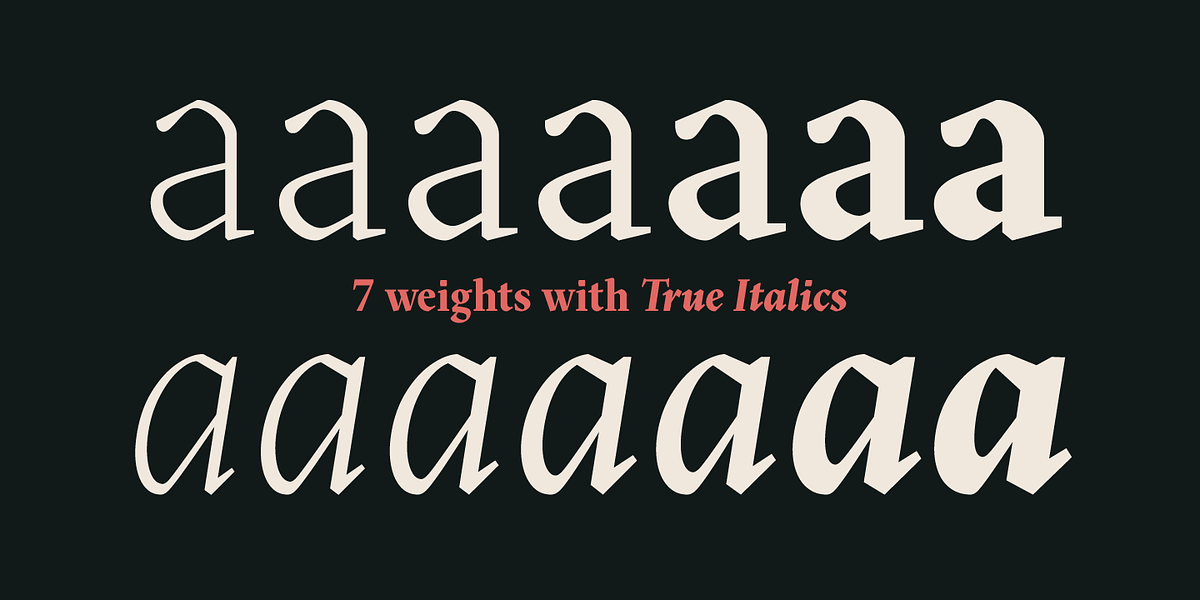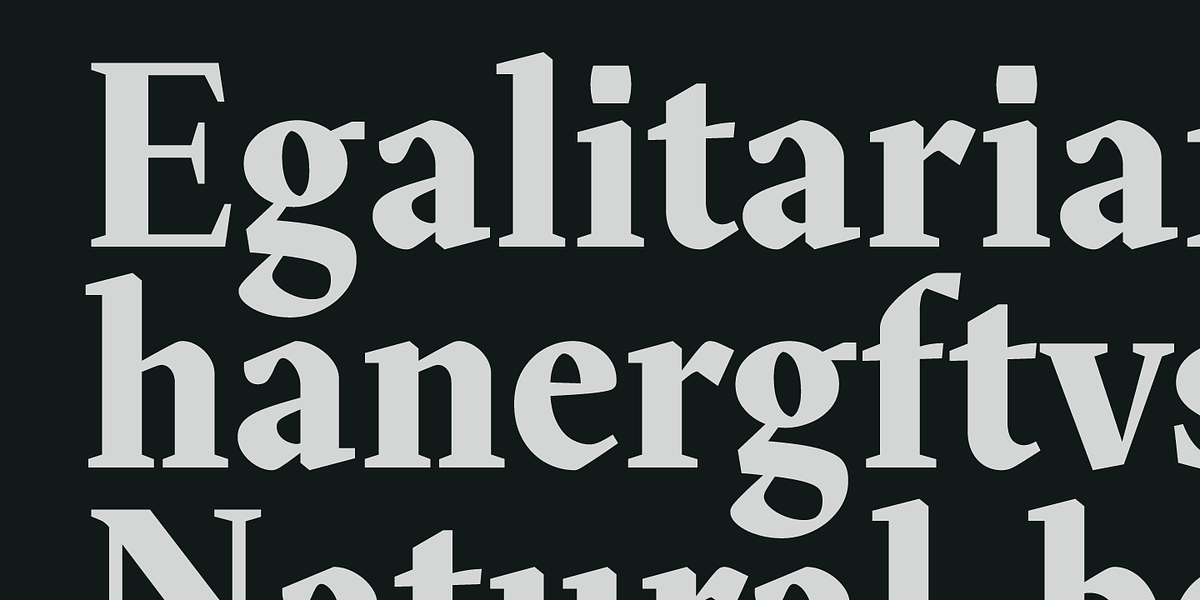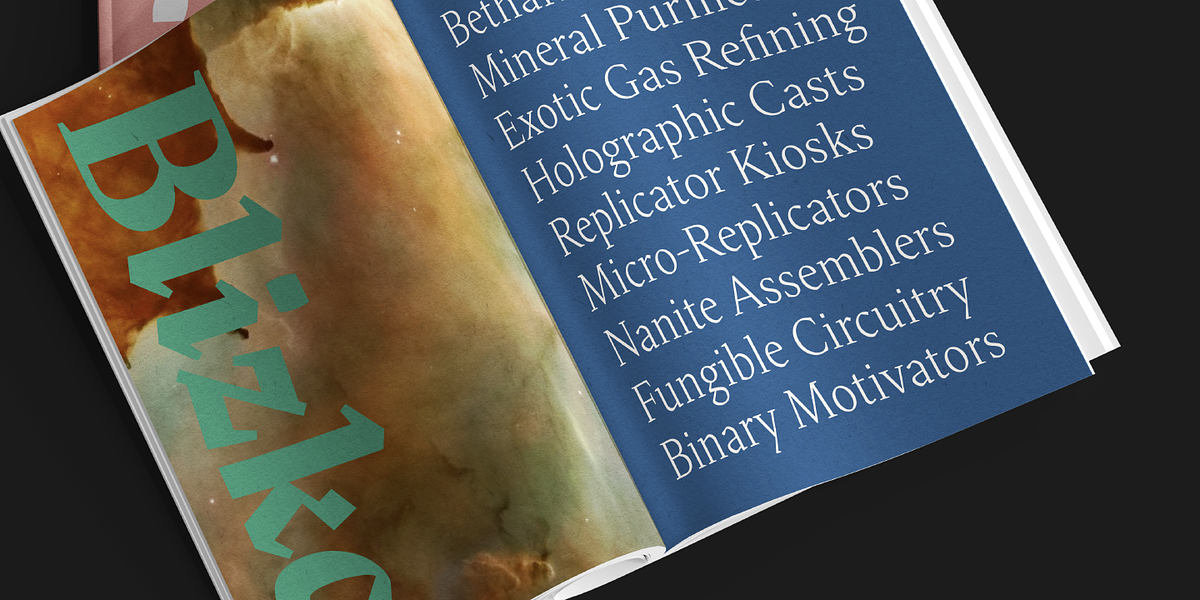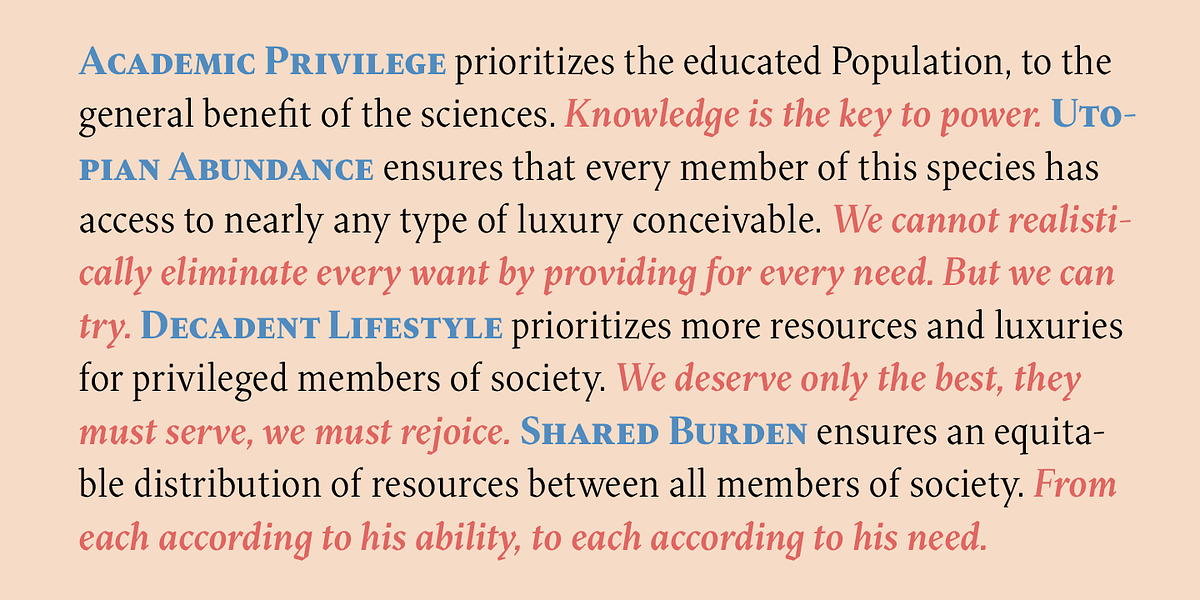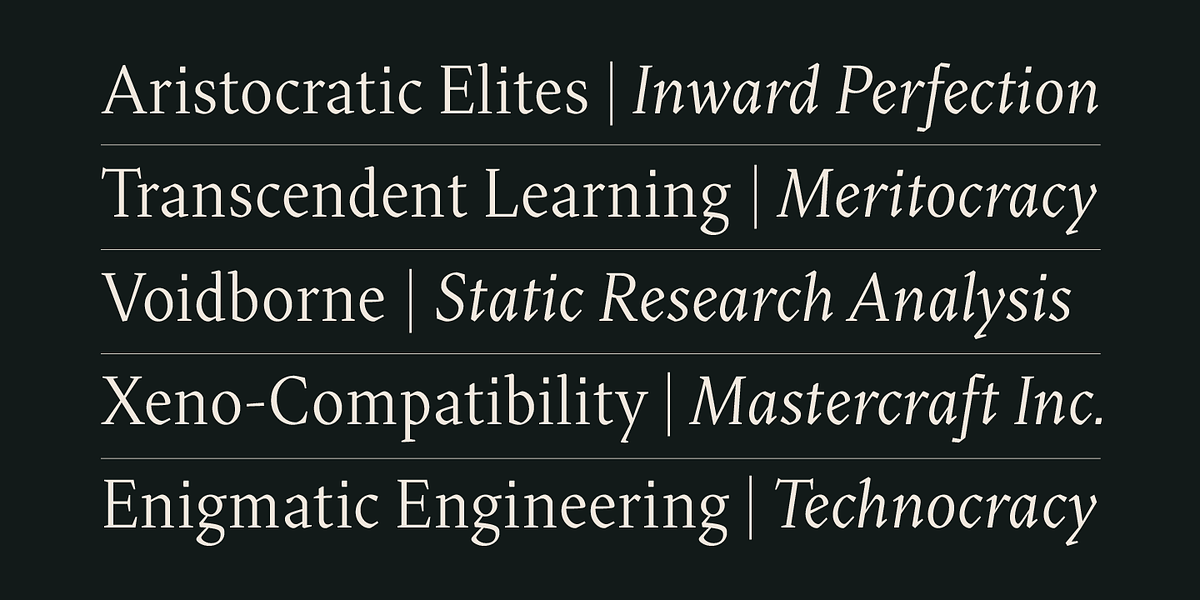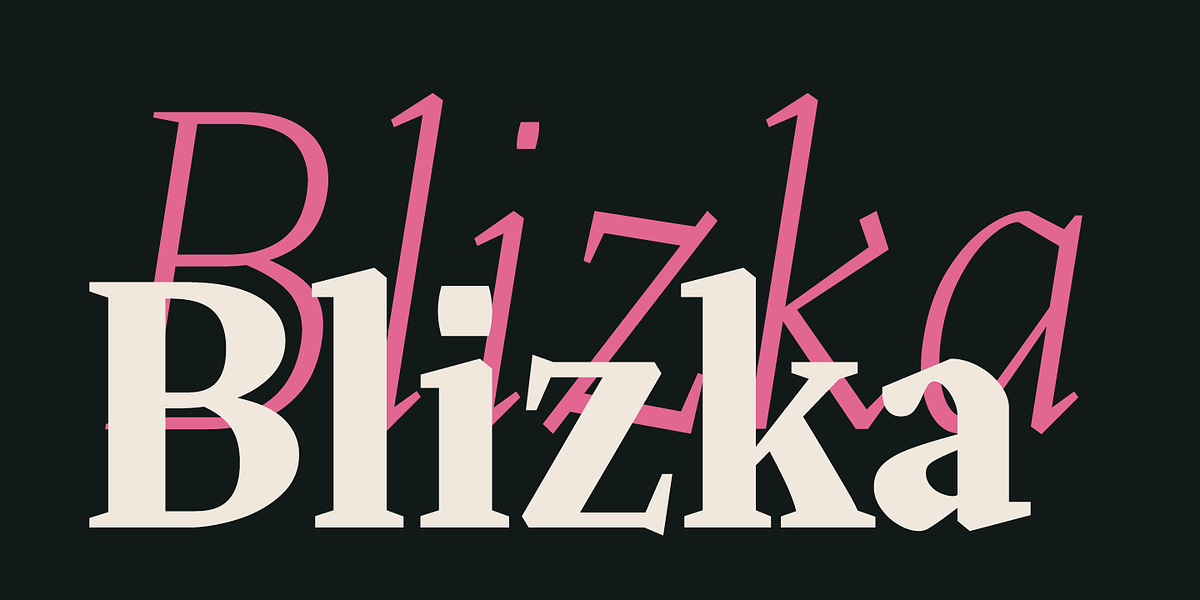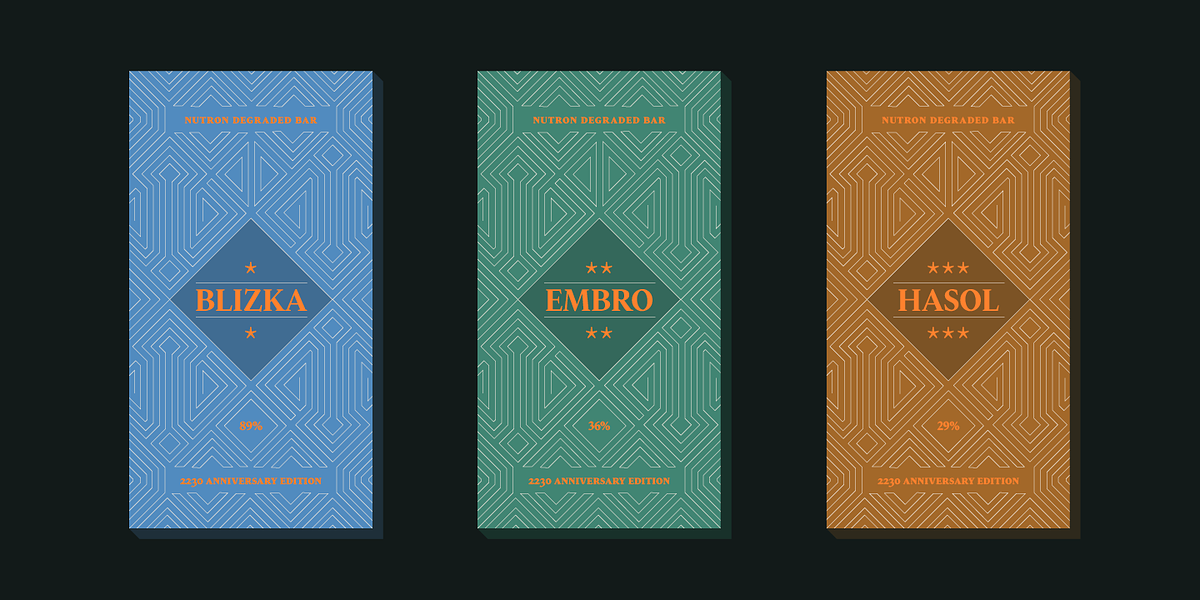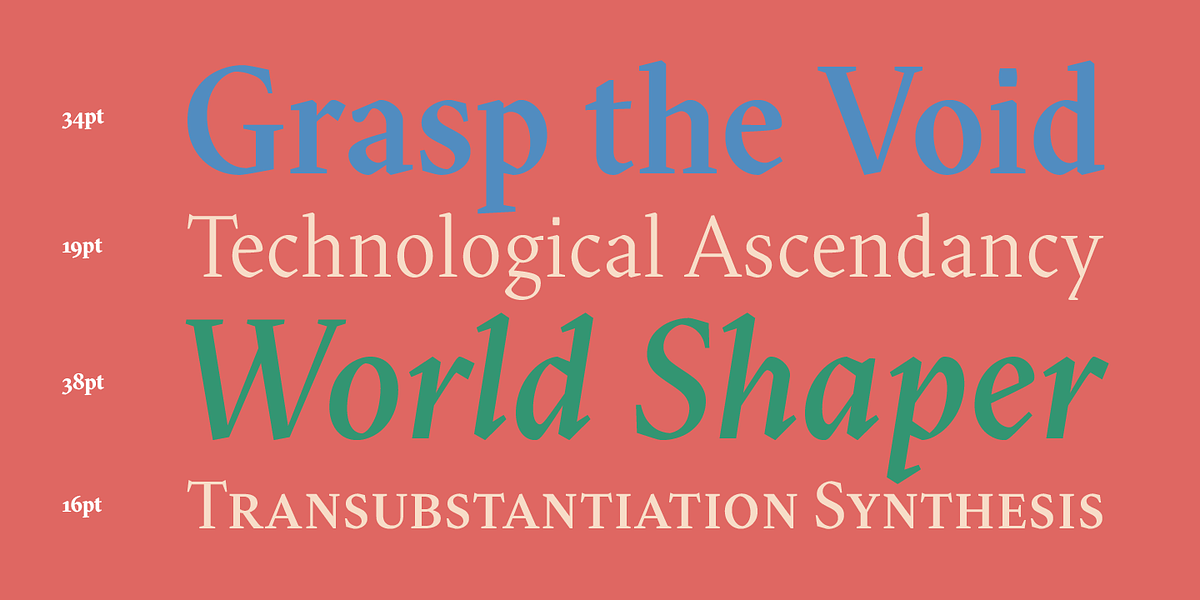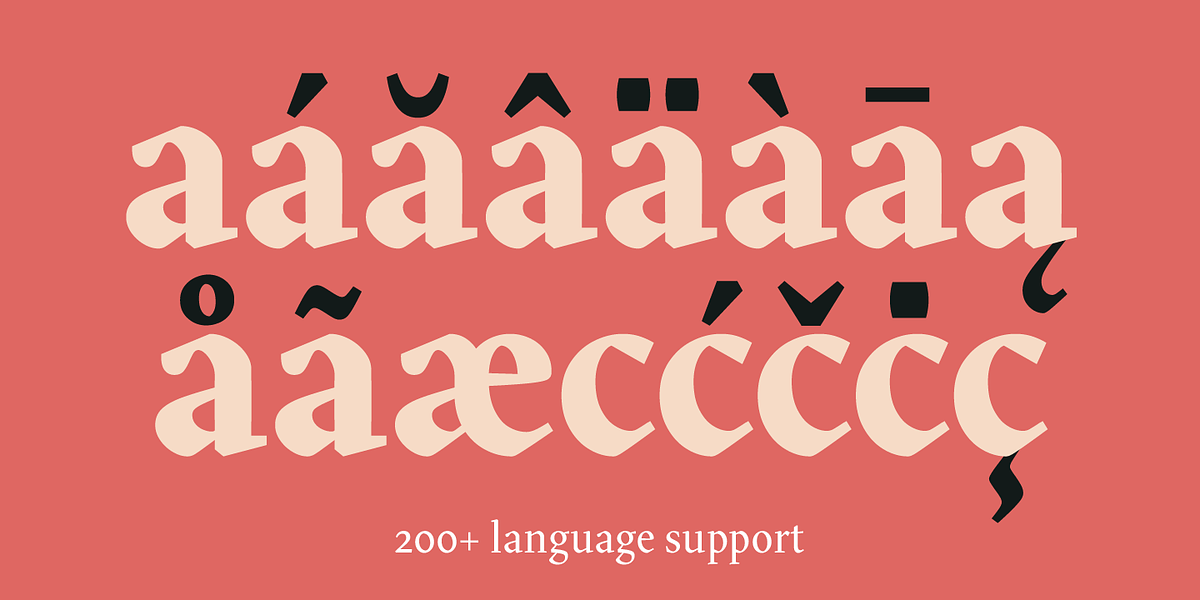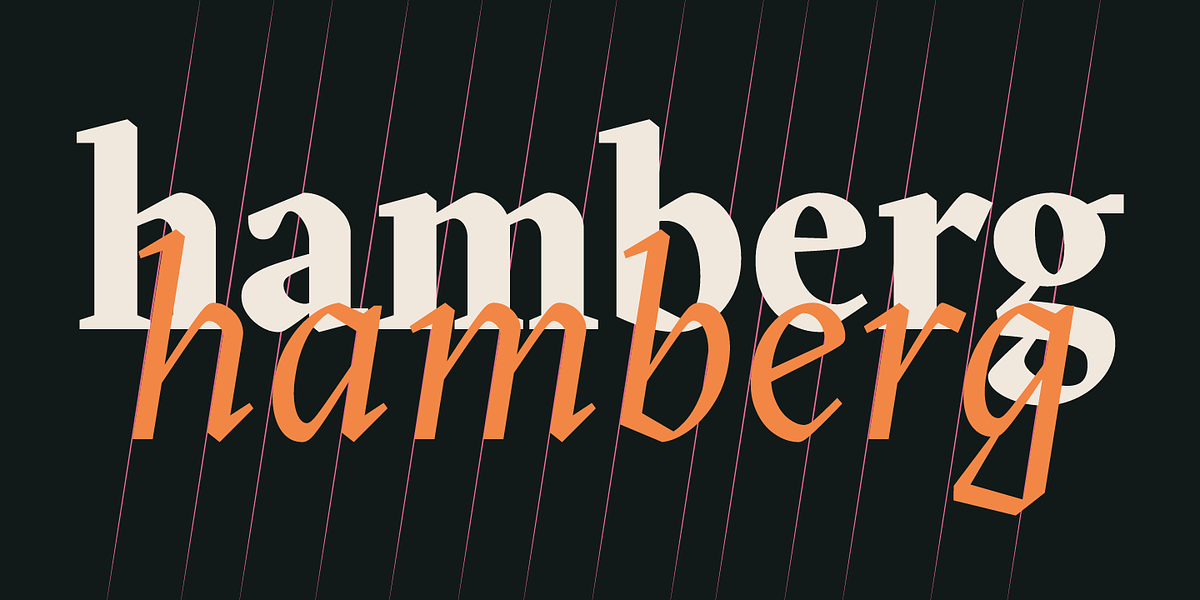
Blizka
Blizka is a transitional serif font designed for readability in small sizes while maintaining personality and visual interest at larger scales. It features calligraphic influences and straight cuts in unexpected details. The font supports over 200 languages and includes features like beautiful italics, small caps, proportional and tabular figures, fractions, and more.